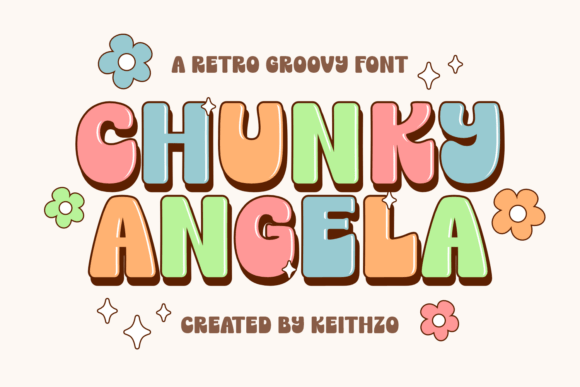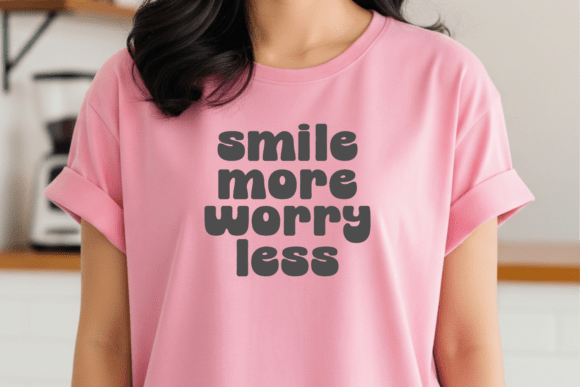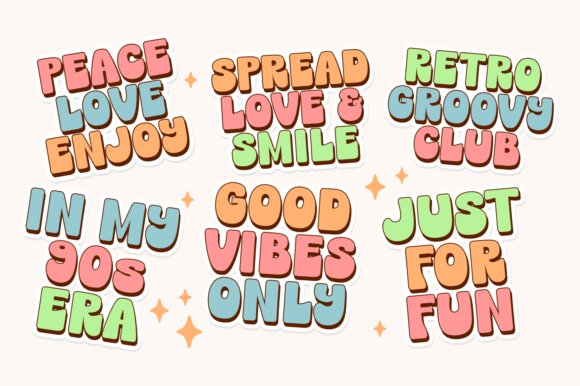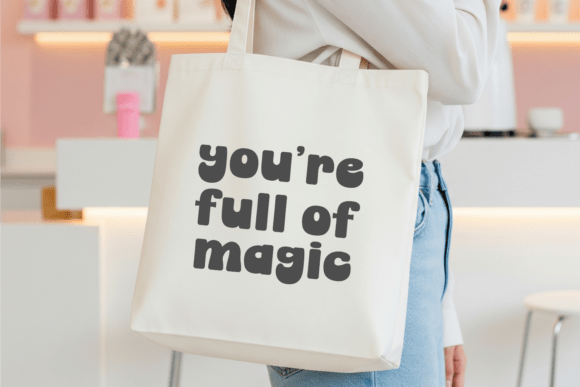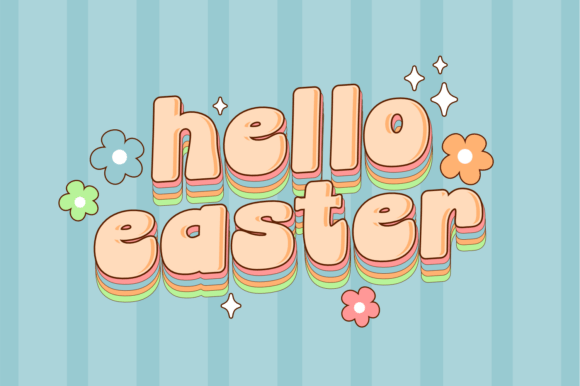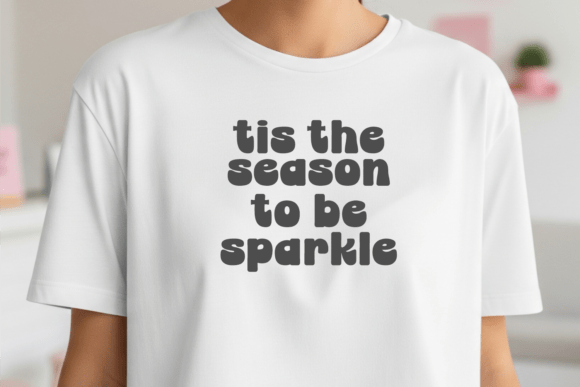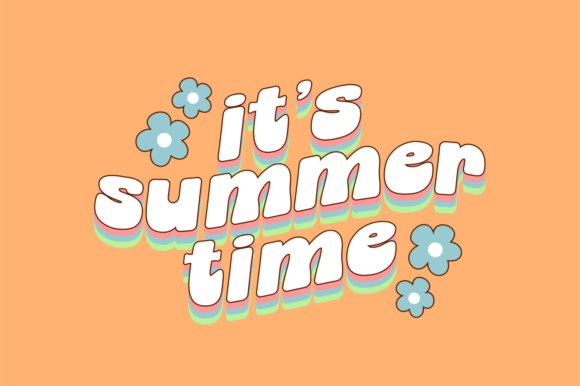
Get Ready to Groove with the Ultimate Retro Font
Who hasn’t experienced that moment of pure creative bliss when they stumble upon the perfect font for their project? It’s like the entire design universe aligns, and everything just clicks. That’s exactly what happens when you meet the Chunky Angela Font – a vibrant and retro groovy font that’s guaranteed to bring a smile to your face.
Created by Keithzo, this bold display font is a masterclass in capturing the fun, nostalgic vibe of the 90s. With its thick, bubble-like characters and unique rounded style, the Chunky Angela Font is the perfect choice for designers looking to add a playful vintage touch to their work. Whether you’re designing posters, branding identities, or modern creative projects, this font is sure to make your text pop with a cheerful and energetic personality.
Chunky Angela Font Key Features
- Font Family: Chunky Angela is a sans-serif font, known for its unique and playful style.
- Unique Characteristics: Chunky Angela’s distinctive features include its rounded edges, bold lines, and a slightly condensed width, giving it a friendly and approachable feel.
Chunky Angela Font Review
Overall, I think the Chunky Angela Font is a great choice for anyone looking for a fun and playful font to add some personality to their designs. ✨ The bold and chunky style is perfect for headings and titles, and it’s sure to grab the user’s attention.
- Unique and eye-catching style that sets it apart from more common fonts
- Perfect for headings, titles, and other prominent text
- Can add a fun and playful touch to designs
- May be difficult to read in smaller font sizes due to its bold and chunky style
- Not suitable for large blocks of text, as it can be overwhelming
- May not be the best choice for formal or professional designs
Overall, I think the Chunky Angela Font is a great addition to any designer’s toolkit. While it may have some limitations, its unique style and versatility make it a great choice for the right projects.
Tips for Getting the Most Out of Chunky Angela Font
Chunky Angela Font is a bold and playful font, perfect for adding a touch of personality to your designs. To get the most out of it, use it in conjunction with other bold fonts or to add emphasis to specific text elements.
Chunky Angela Font is commonly used for:
- Heading and title text
- Emphasis text in social media posts and advertising